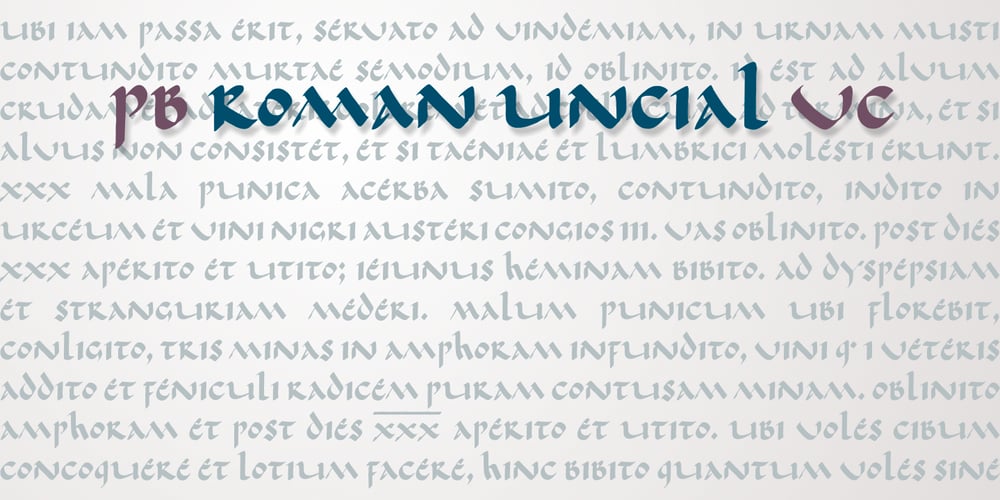
PB Roman Uncial Vc Font Family was designed by Paweł Burgiel and published by Paweł Burgiel. PB Roman Uncial Vc contains 1 styles and family package options. PB Roman Uncial Vc is a font face designed for imitate Roman uncial writing style found in manuscripts from 4th to 5th century. All characters are handwritten by use ink and reed pen (calamus), scanned, digitized and optimized for best quality without lost its handwritten visual appearance. Character set support codepages: 1250 Central (Eastern) European, 1252 Western (ANSI), 1254 Turkish, 1257 Baltic. Include also additional characters for Cornish, Danish, Dutch and Welsh language, spaces (M/1, M/2, M/3, M/4, M/6, thin, hair, zero width space etc.), historical characters (overlined Roman numerals, abbreviations, I-longa, historical ligatures for “nomina sacra” and “notae communes”) and wide range of ancient punctuation. OpenType TrueType TTF (.ttf) font file include installed OpenType features: Access All Alternates, Localized Forms, Fractions, Alternative Fractions, Ordinals, Superscript, Tabular Figures, Proportional Figures, Stylistic Alternates, Stylistic Set 1, Historical Forms, Historical Ligatures. Include also kerning as single ‘kern’ table for maximum possible backwards compatibility with older software. Historical ligatures for “nomina sacra” and “notae communes” are mapped to Private Use Area codepoints.